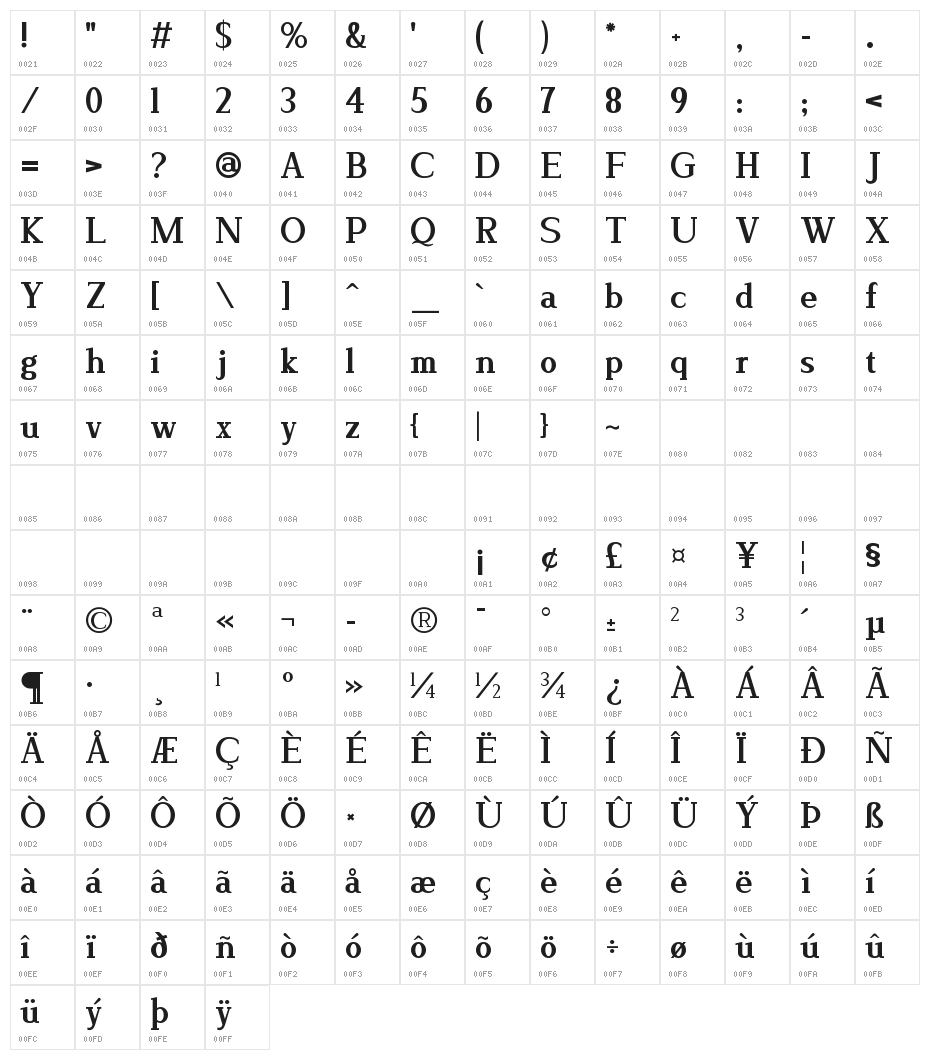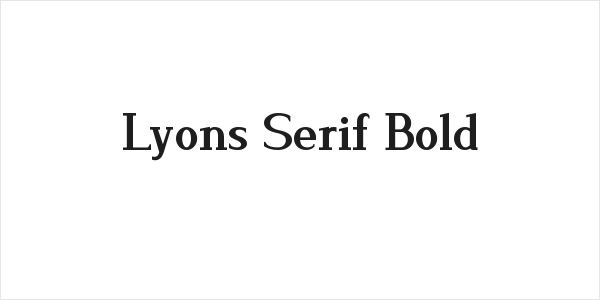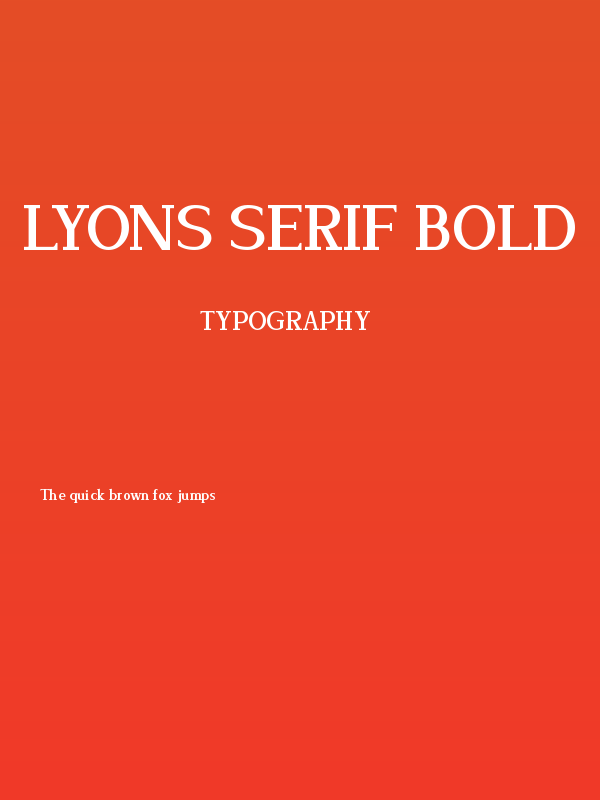
Lyons Serif Bold Font
Lyons Serif Bold Description
This font exhibits a classic serif style with strong, bold strokes that convey a sense of authority and tradition. The serifs are pronounced, providing a timeless elegance that is both readable and visually appealing. The uppercase letters are well-proportioned, with a slight contrast between thick and thin strokes, enhancing the font's legibility. The lowercase letters maintain a consistent style, with rounded edges that soften the overall appearance. Numerals are clear and distinct, making them suitable for both text and numerical data presentation. Special characters are well-integrated, ensuring versatility across various applications.